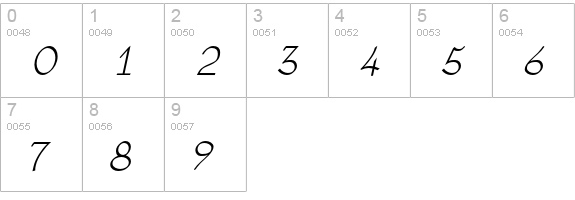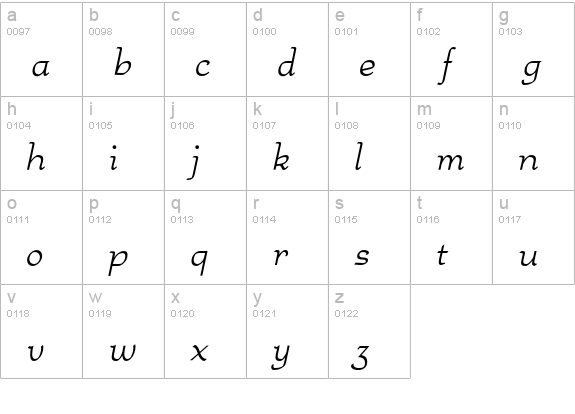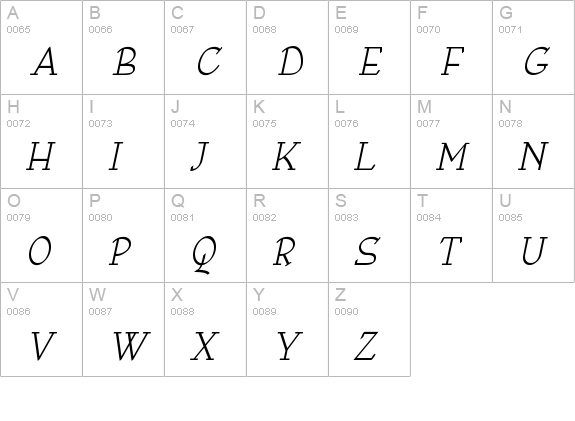
NympheItalic Font Details
Immerse yourself in the graceful beauty of NympheItalic font, a stunning typeface that exudes elegance and sophistication. With its delicate strokes and flowing curves, NympheItalic is perfect for adding a touch of refinement to any design project. This exquisite font is not only visually captivating but also versatile, making it suitable for a wide range of applications, from branding and editorial design to packaging and invitations. Whether you're looking to create a romantic wedding invitation or a sophisticated logo, NympheItalic will elevate your work to new heights. Best of all, NympheItalic is completely free to download at FontsMarket.com. So why wait? Enhance your projects with the timeless beauty of NympheItalic and make a lasting impression today.